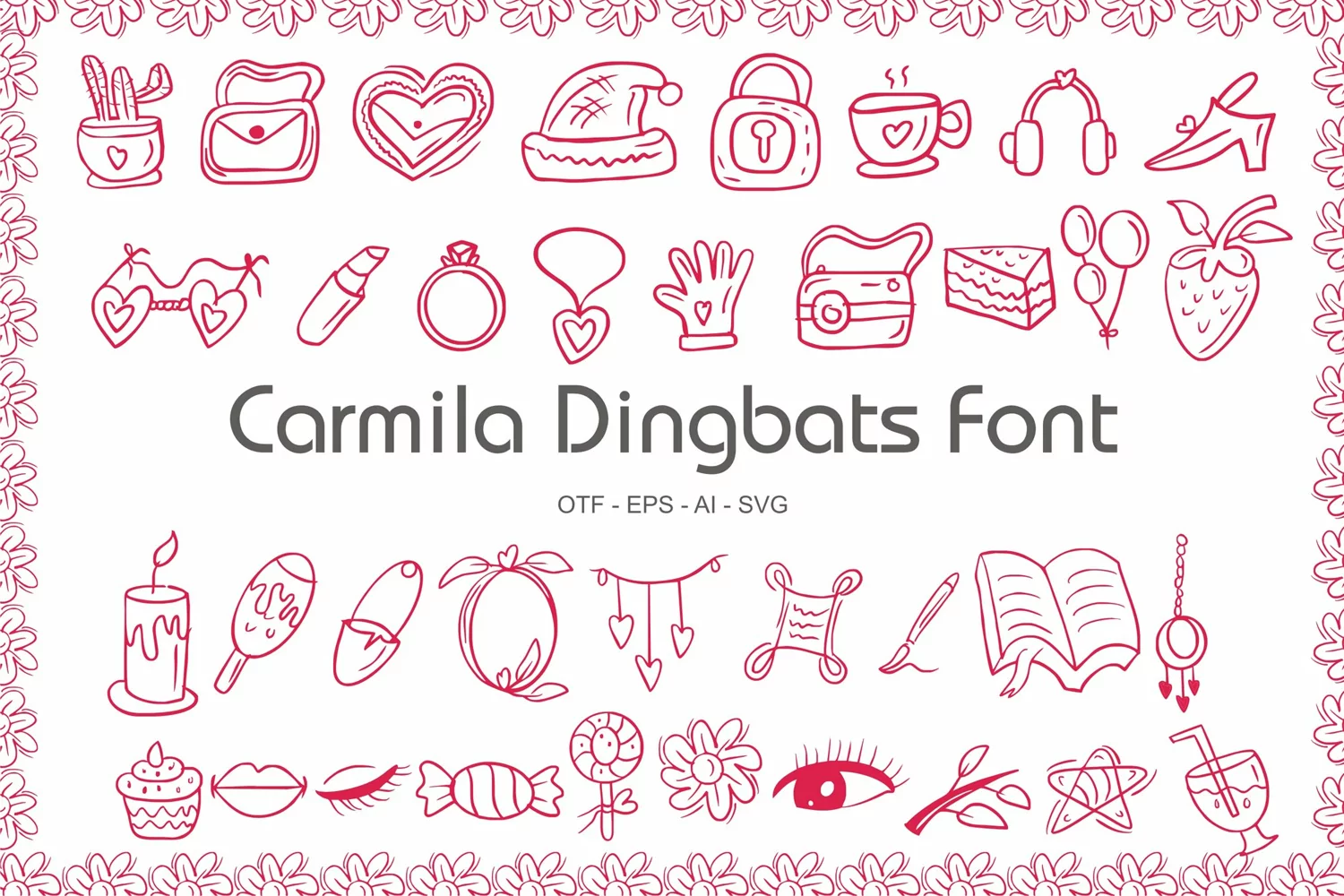
Carmila Dingbats Font
Carmila Dingbats is a cool, creative and useful dingbats font. No matter the topic, this font will be an incredible asset to your fonts’ library, as it has the potential to elevate any creation.